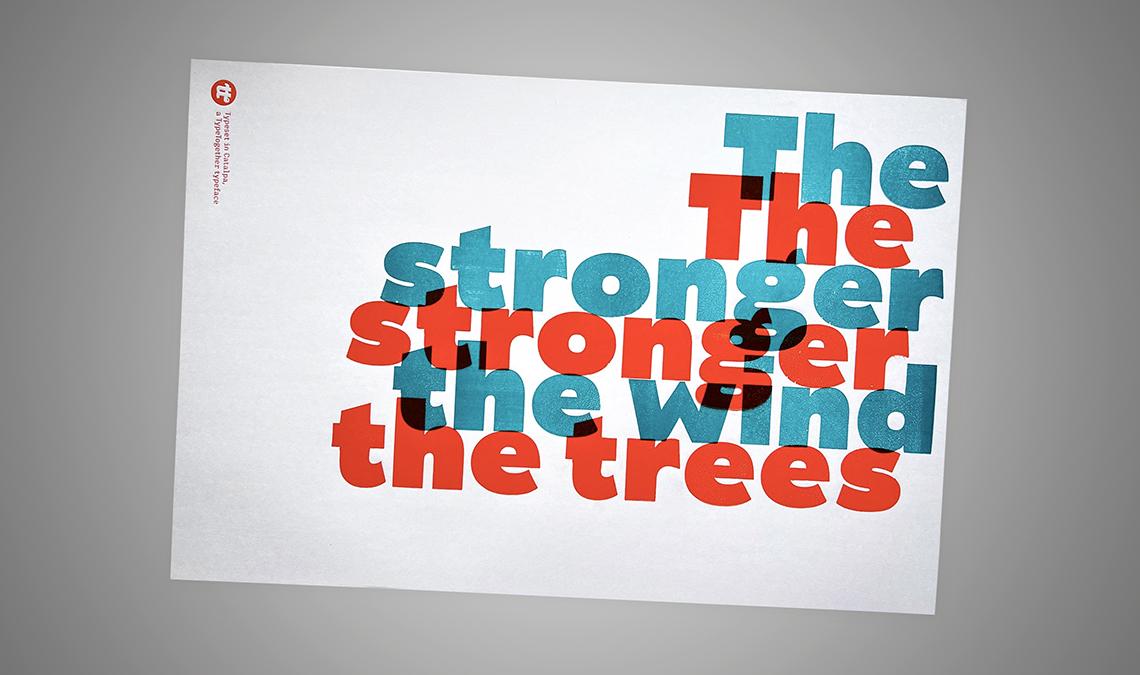
Catalpa wood letterpress poster blue/orange
Catalpa was inspired by wood type, clever diacritics, and peculiarities in large headline text. It’s only fair for it to be turned into true wood type and used in poster creation by Rafael Neder, Rafael Dietzsch, and Cláudio Rocha. Handcrafted and typeset in Catalpa Extrabold, the poster measures 460 x 313 mm (18 x 12 inches) and was printed at Tipografia Matias, Belo Horizonte, Brazil.
“The stronger the wind, the stronger the trees.”
–Douglas Malloch, quote from poem “Good Timber”
Printed by Cláudio Rocha and Rafael Neder at Tipografia Matias, Belo Horizonte, Brazil.
Catalpa wood letterpress poster detail
Catalpa letterpress